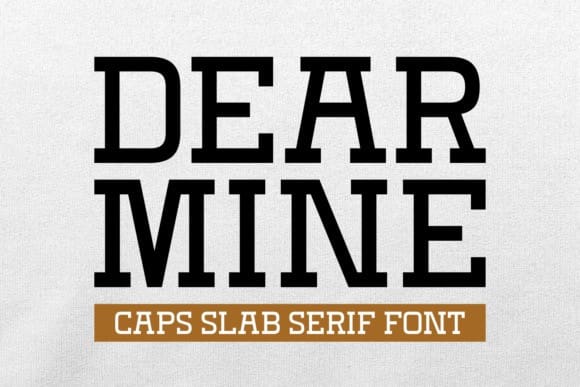
Dear Mine Font
Dear Mine Font, is a bold and assertive slab serif font. No matter the topic, this font will be an incredible asset to your fonts’ library, as it has the potential to elevate any creation.